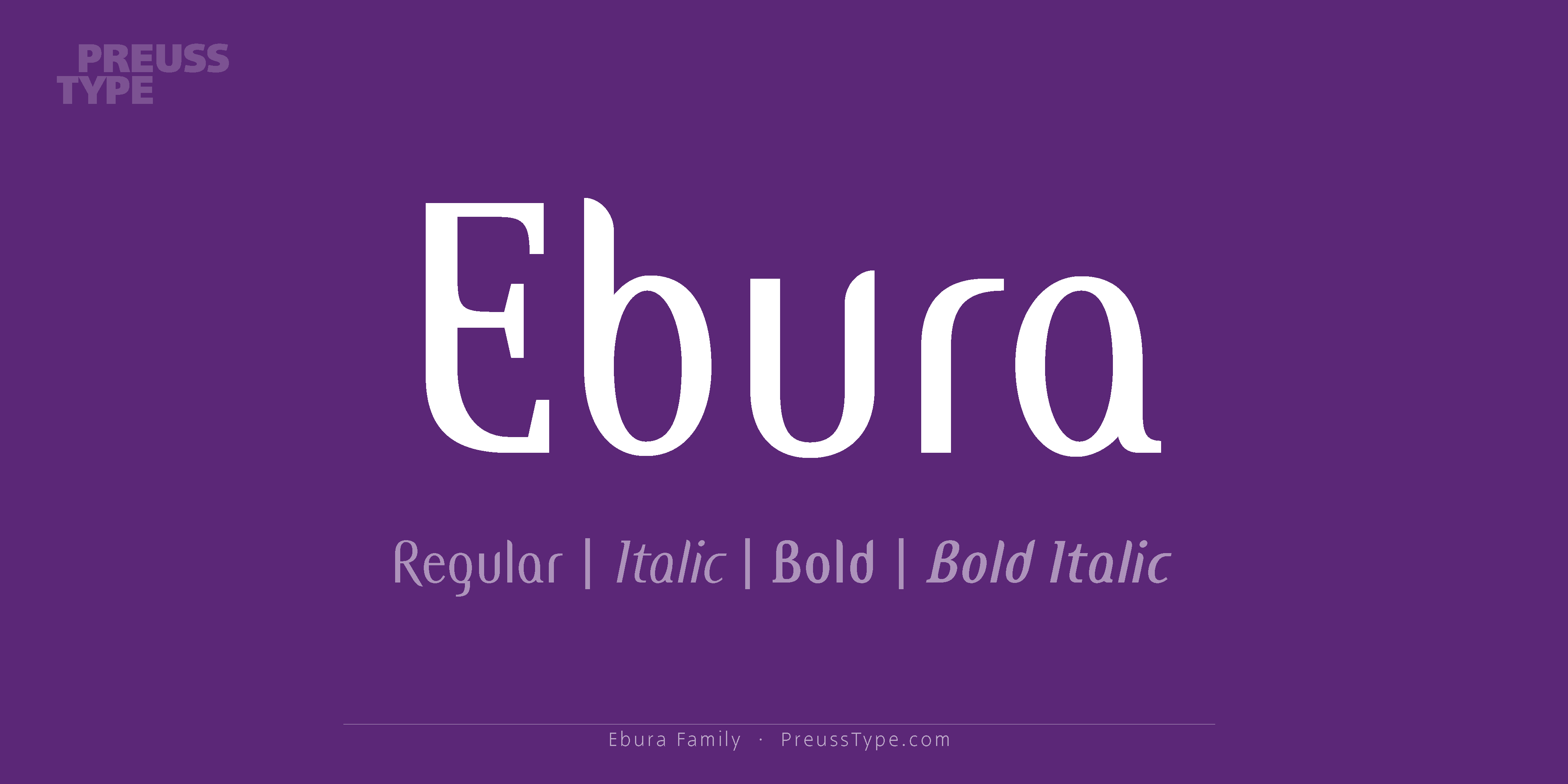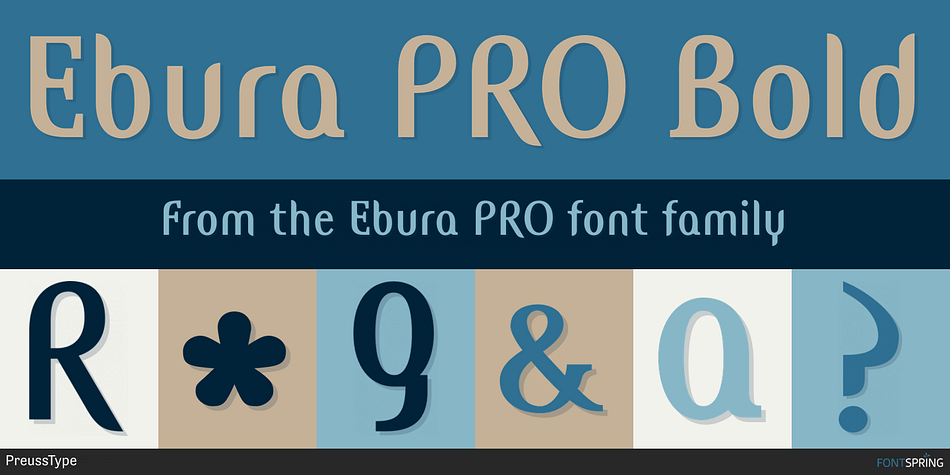
Ebura PRO Bold
Ebura PRO is a display sans font family. This typeface has four styles and was published by preussTYPE.
Ebura is a funny and fashionable SansSerif (or Semi-Serif?) type. Extended Latin, extended figures and SmallCaps are supported as OpenType-feature.
This font is a mixture of things contemporary. It has a techno skeleton, is sans-serif and has experimental letter-forms. It is synthetic, in both the sense of being artificial, and of being complex, constructed from a variety of elements. Ebura is eclectic, fanciful, and skilfully crafted.